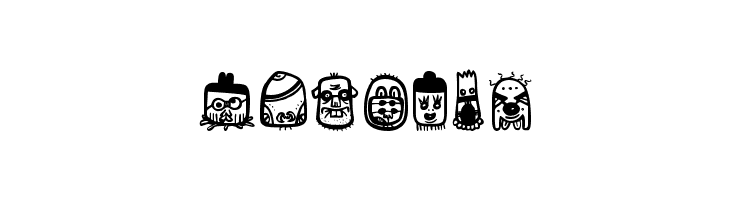
• aliendco
A whimsical, alien-themed decorative font with unique character designs.
• aliendco
A playful and decorative font with alien-like character designs.
• aliendco2
A whimsical and decorative font featuring unique cartoonish characters.
• aliendco2
A playful, cartoon-like decorative font with unique character designs.
• AlienDot
A playful, futuristic font with bold strokes and dot connections.
• AlienFur
A bold, spiky font with a playful and textured appearance.
• Aliens & cows
A bold, condensed font with a modern and sleek design.
• Aliens & cows Bold
A bold, condensed font with geometric letterforms and uniform stroke width.
• Aliens & cows ExtraBold
A bold, modern font with thick, uniform strokes and a slightly condensed style.
• Aliens & cows ExtraLight
A modern, tall, and narrow font with a sleek, minimalistic design.